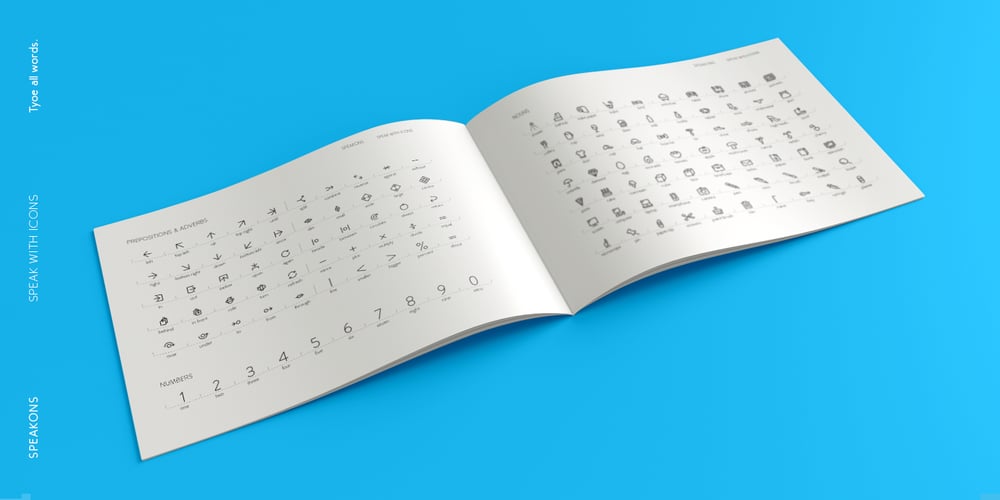
Speakons
Speakons font
Speakons Font Family was designed by Alex Schnaible and published by Alex Schnaible. Speakons contains 3 styles and family package options. The Speakons are made out of 500 icons in three different styles. They change automatically into icons by typing the right words through its OpenType feature. It was specially designed to break down our language barriers. To be understood internationally. It’s also perfect if you just need a huge icon family. Give it a try! You don’t want to miss it.